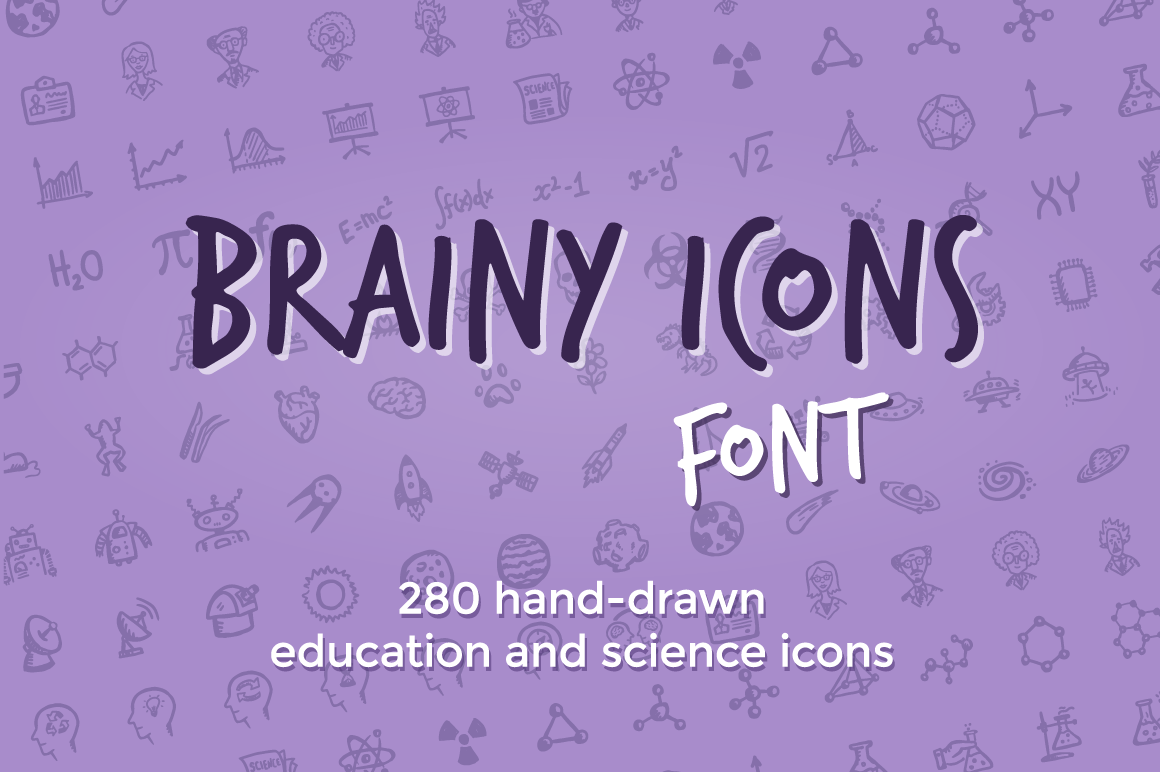
Brainy Icons Font
Education icon font includes 280 hand-drawn icons featured in the original Brainy Icons set by Hand-Drawn Goods.
Icon font allows seamlessly add icons to web layouts and style each icon with CSS, saving time from generating sprites or editing the images.
Brainy Icons Font is a science and education icon font that includes characters from the following categories: school, university, ideas, laboratory, thinking, math, space, technology, concepts and education.